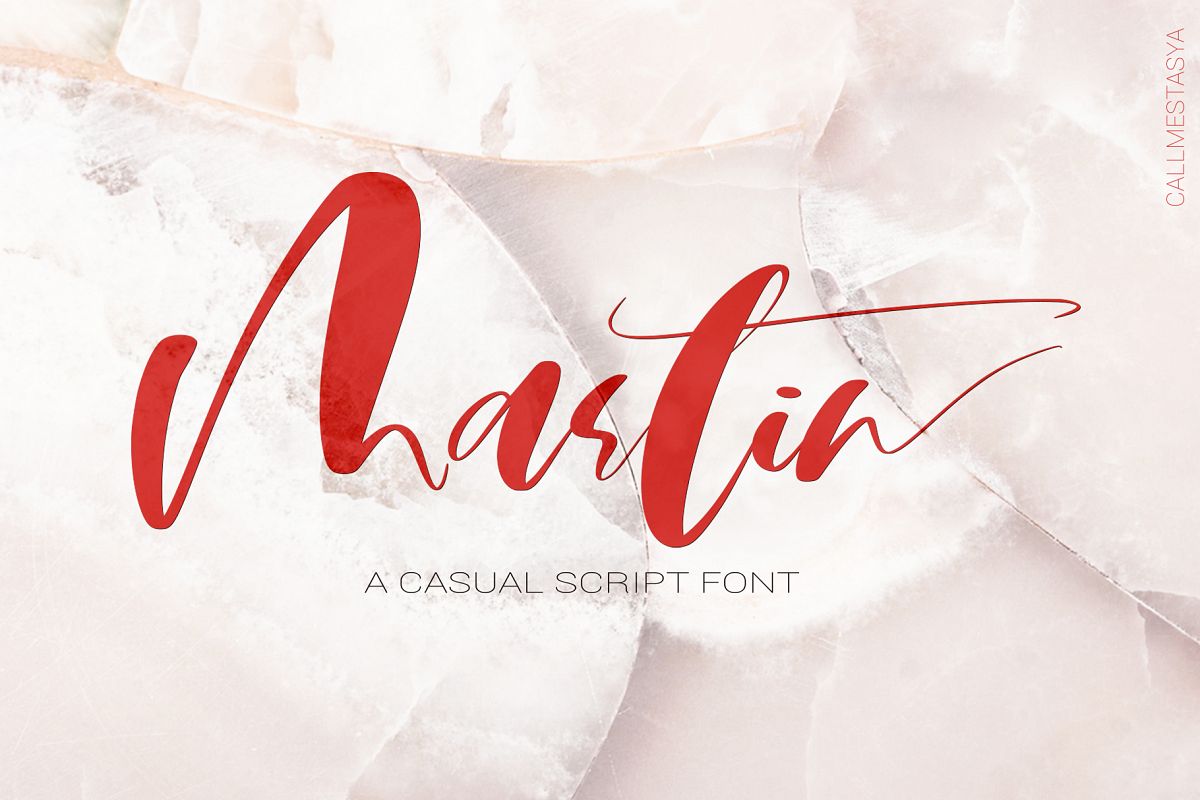
Martin Script Font
Martin Script Font - it's a modern casual fontOTF files works in programs that supports OpenType features (for example Adobe Illustrator ) .If you don't have software that supports OpenType features just use TTF